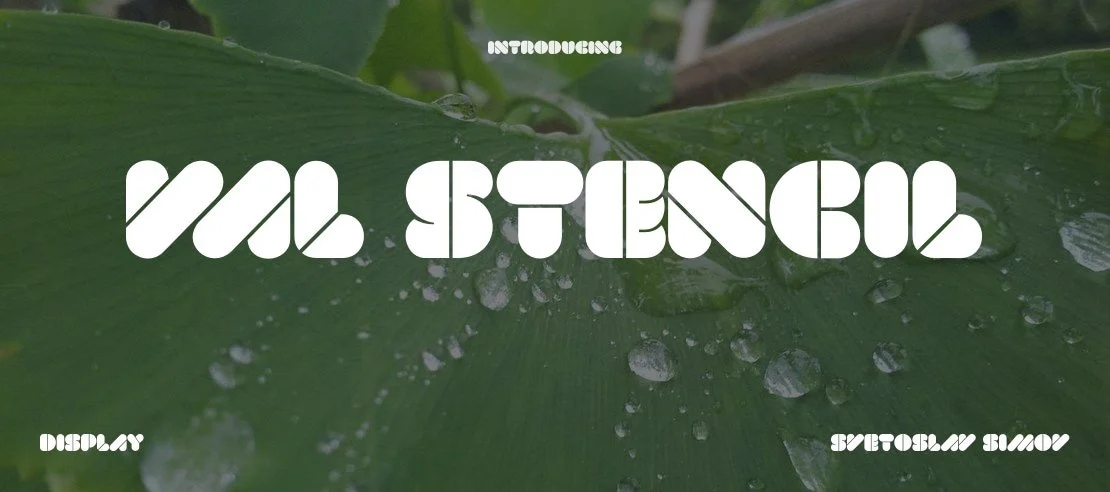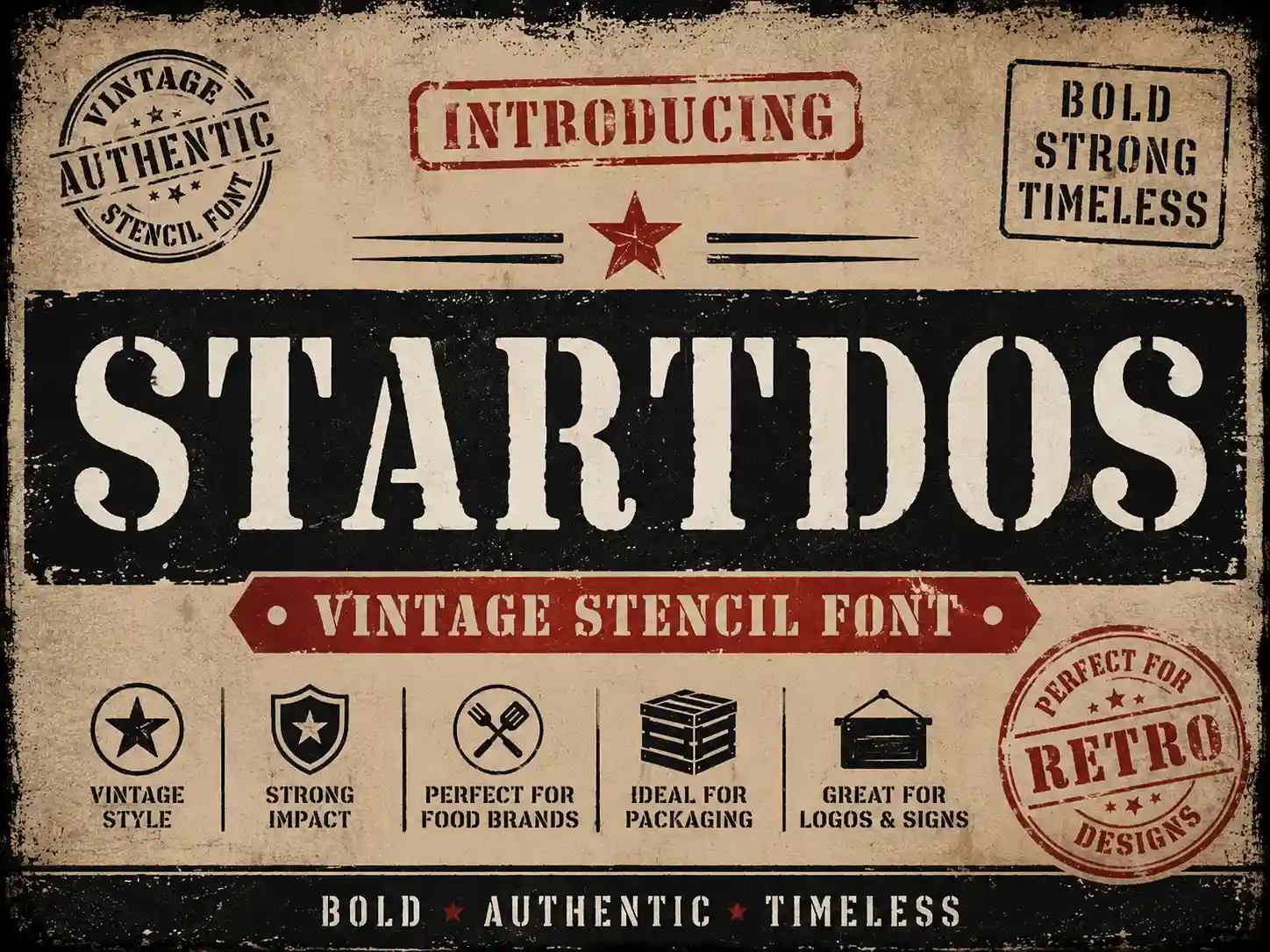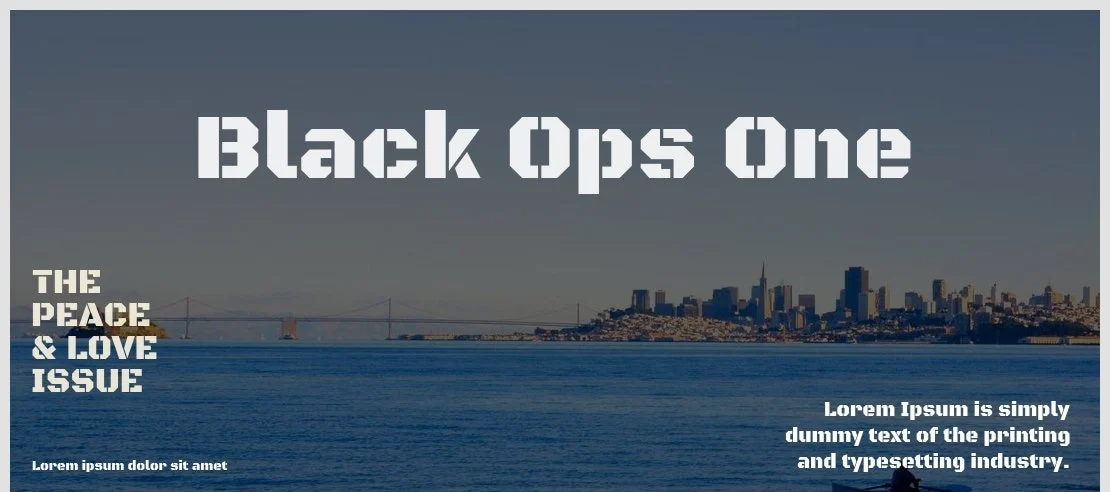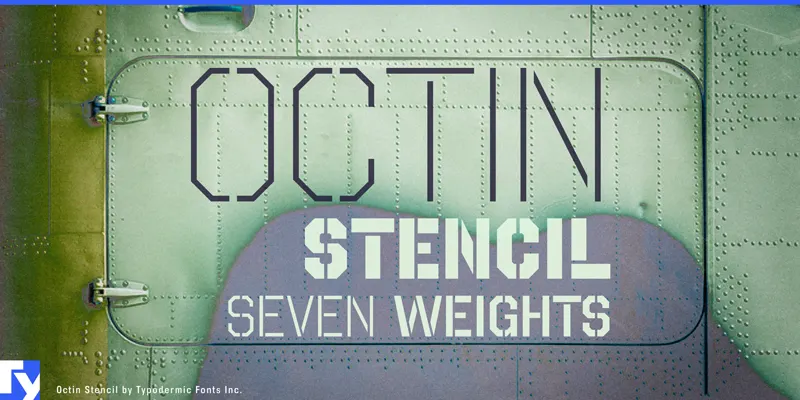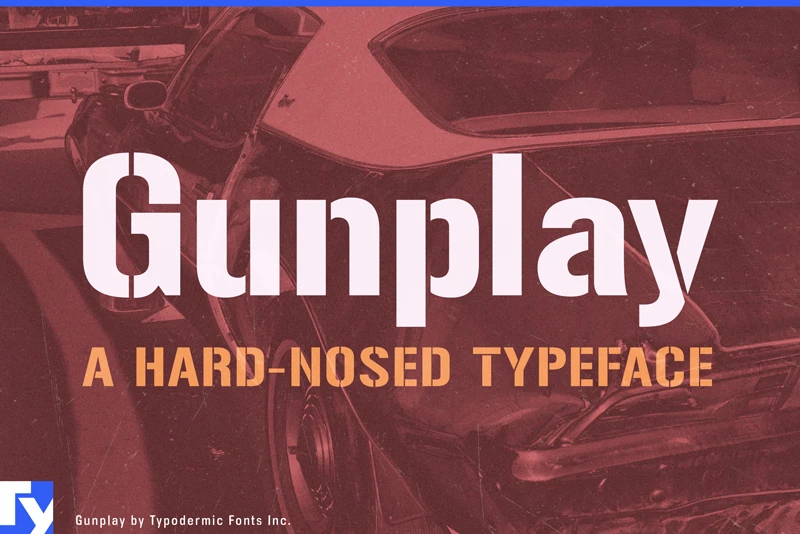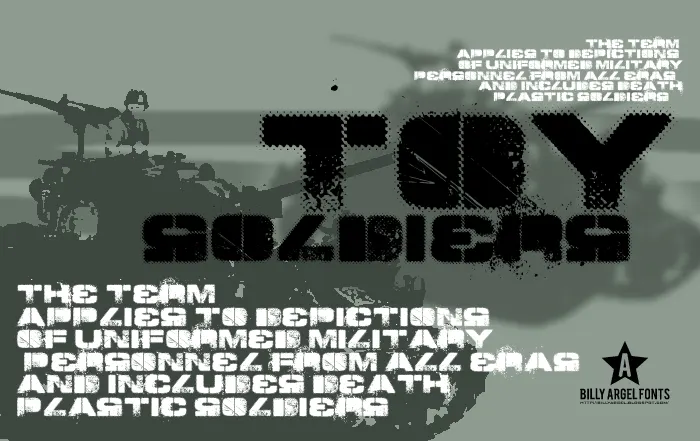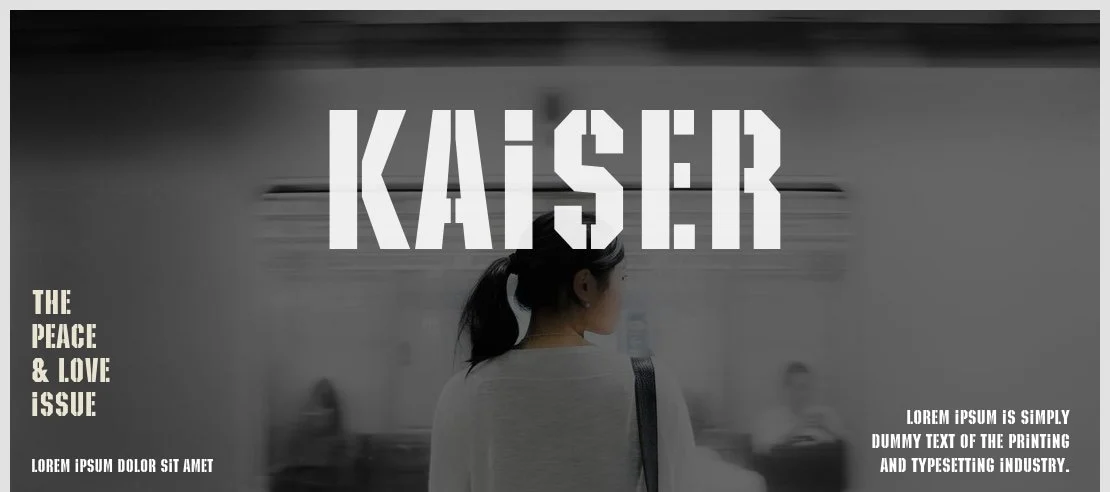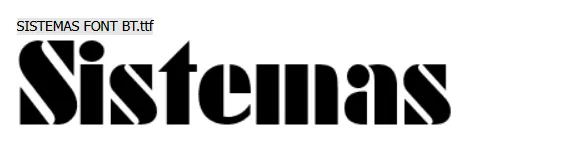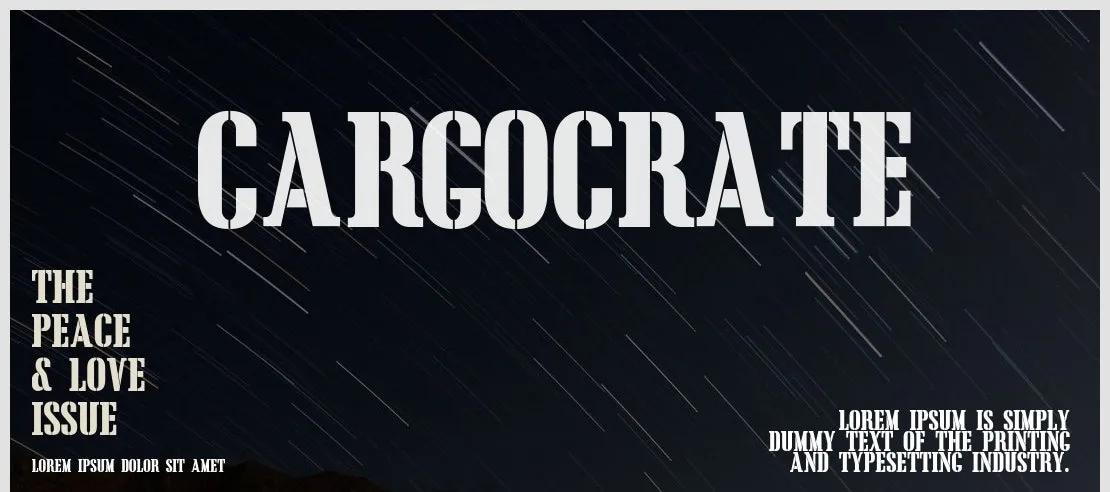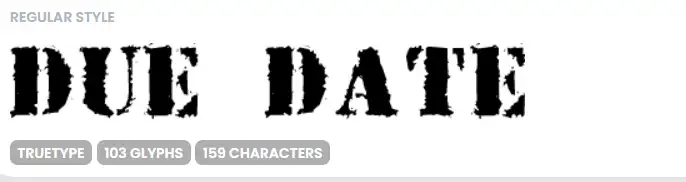
Stencil fonts are one of those font styles that never really go out of fashion. You see them on military crates, streetwear brands, outdoor gear, event posters, food packaging — pretty much everywhere a designer wants to say something bold without overthinking it.
What Is a Stencil Font?
A stencil font is a typeface designed to look like letters cut out of a flat template — a stencil — and then painted or sprayed through. The defining feature is those small breaks in the letterforms. Those gaps are what keep the stencil from falling apart when you cut the letters out. In a font, they are baked into the design.
If you have ever seen the blocky lettering on a military ammo box or a warehouse crate, that is stencil typography in its most classic form.
A Short History of Stencil Typography
Stencil lettering goes back centuries. Before printing was widely available, stencils were one of the fastest ways to label things — barrels, crates, shipping containers, ammunition boxes. The technique was practical, fast, and consistent.
By the 20th century, the military had fully adopted stencil lettering as a standard. The visual style became tied to authority, utility, and strength. That association stuck.
In the 1980s and 90s, street artists started pulling stencil aesthetics into a completely different direction — guerrilla art, protest, urban commentary. Banksy took it worldwide. Suddenly the same letter style that lived on army crates was showing up on gallery walls.
Today, the stencil aesthetic shows up in fashion, streetwear, food branding, sports, and digital design. It has outlived every “trend” it was supposedly part of — because it works.
Why Stencil Fonts Are Still Popular
- They communicate strength and directness without any decoration
- They work at large sizes — posters, banners, signage
- They carry real visual authority — military, industrial, bold
- They contrast beautifully against thin serif or clean sans-serif fonts
- They feel physical, tactile — in a world of perfectly smooth digital design, that roughness reads as authentic
Industries That Use Stencil Fonts Most
What font is used for military stencils?
Real military stencil lettering does not come from a single font — it varied by country, era, and application. But the typefaces that come closest to authentic military stencil lettering are Black Ops One, Top Secret, Gunplay, LeArchitect, and Toy Soldiers. Black Ops One is widely considered the most accurate digital representation of classic military stencil typography.